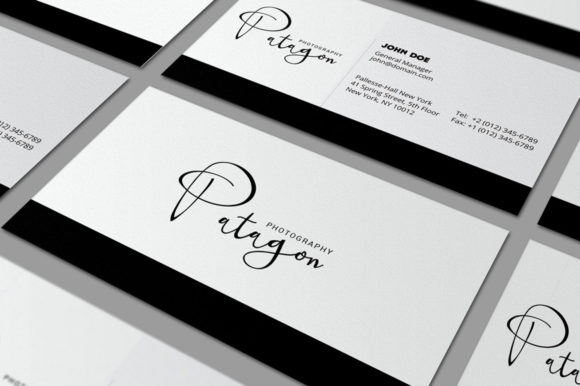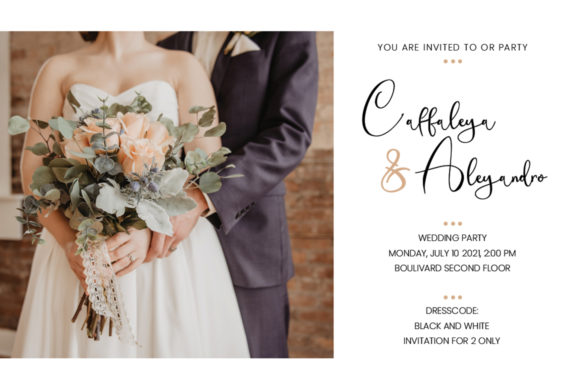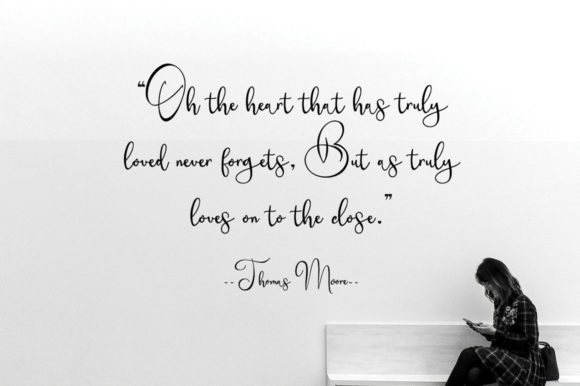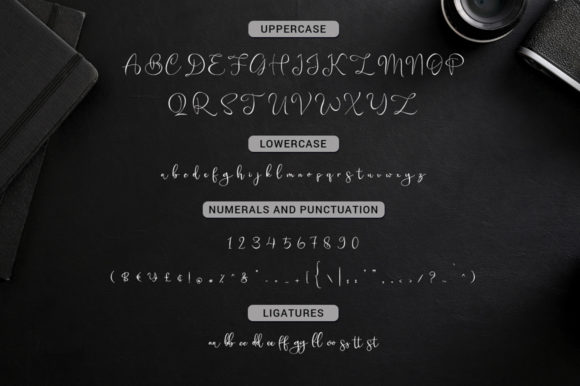
About Allaiya Font
Allaiya is a modern script font which was made to express love and joy. It looks beautiful on a variety of designs requiring a personalized style, such as wedding invitations, thank you cards, weddings, greeting cards, logos and so on.